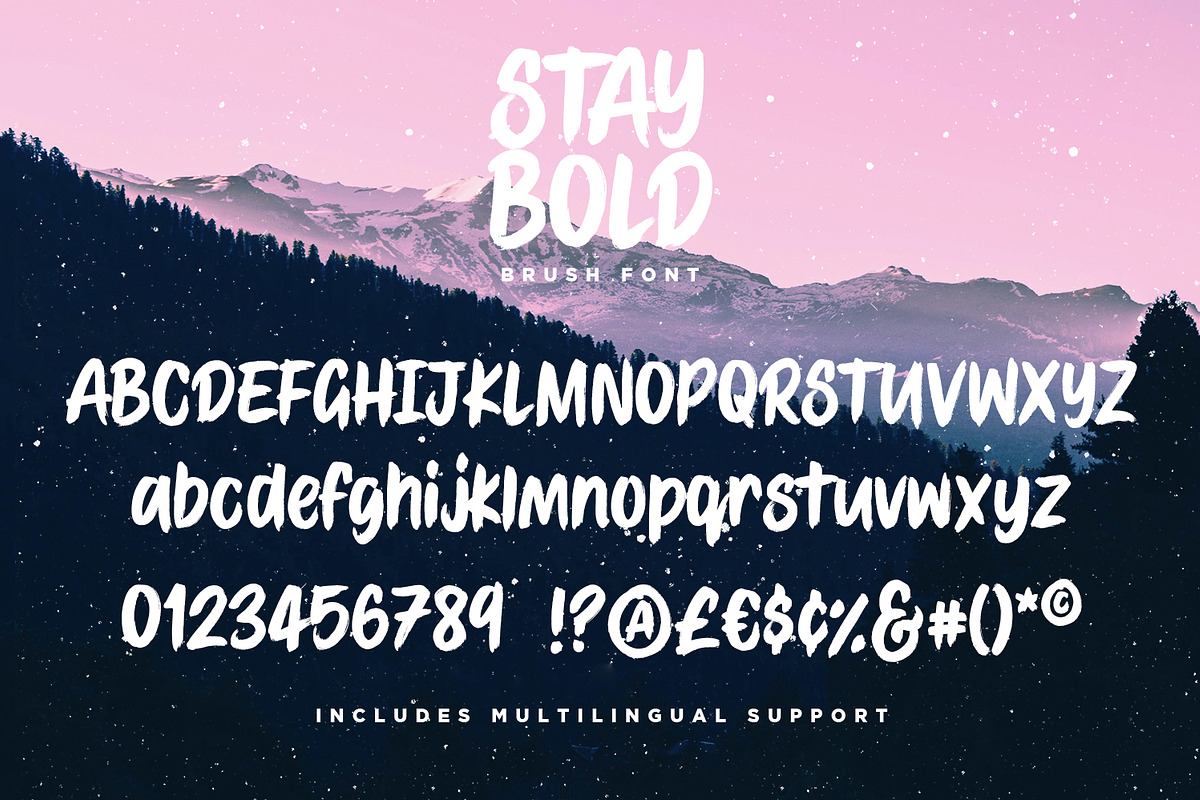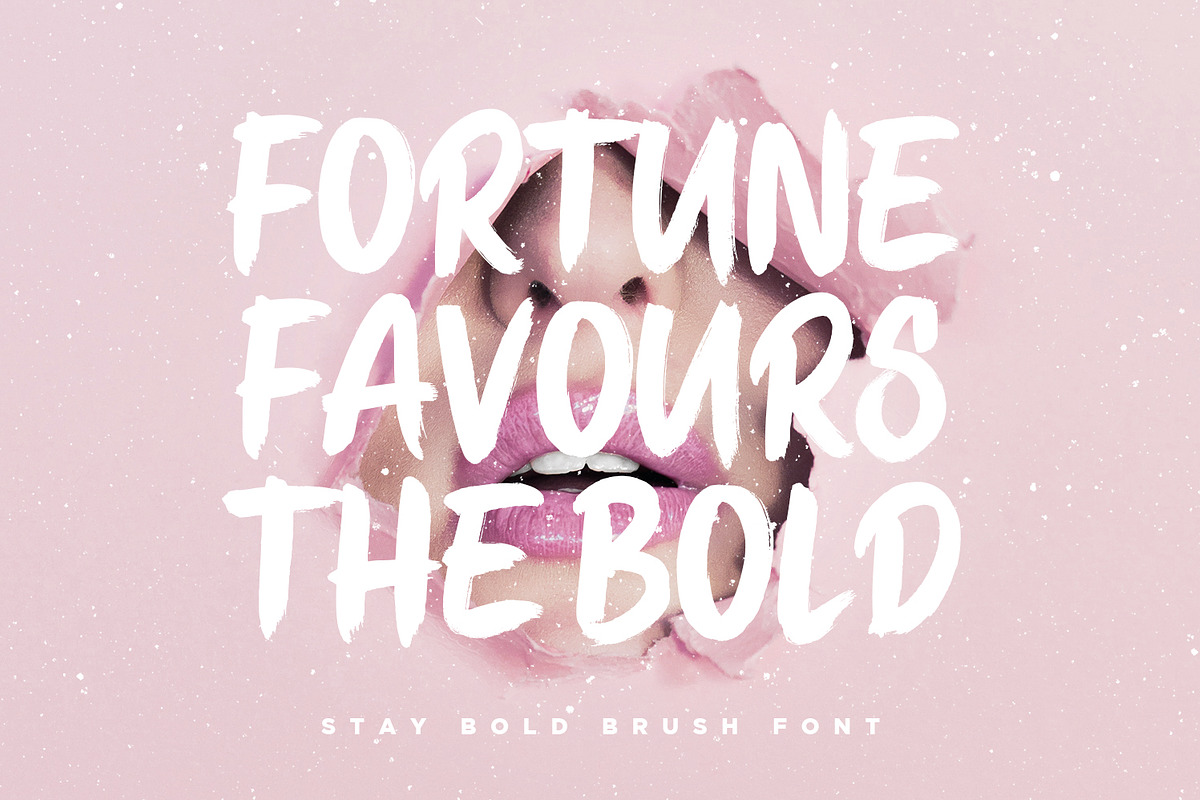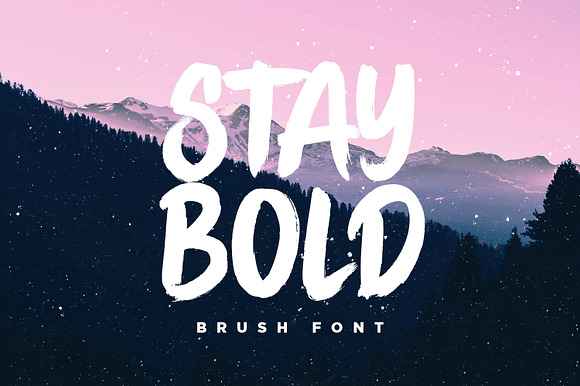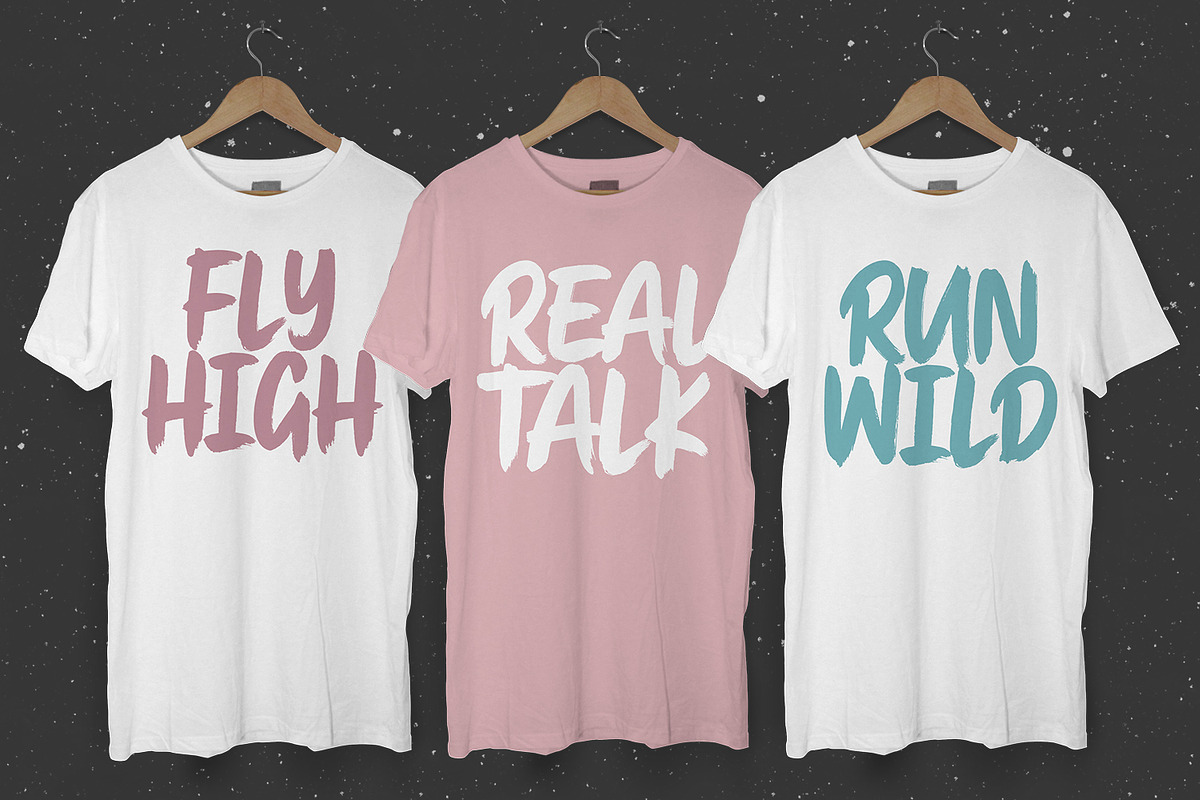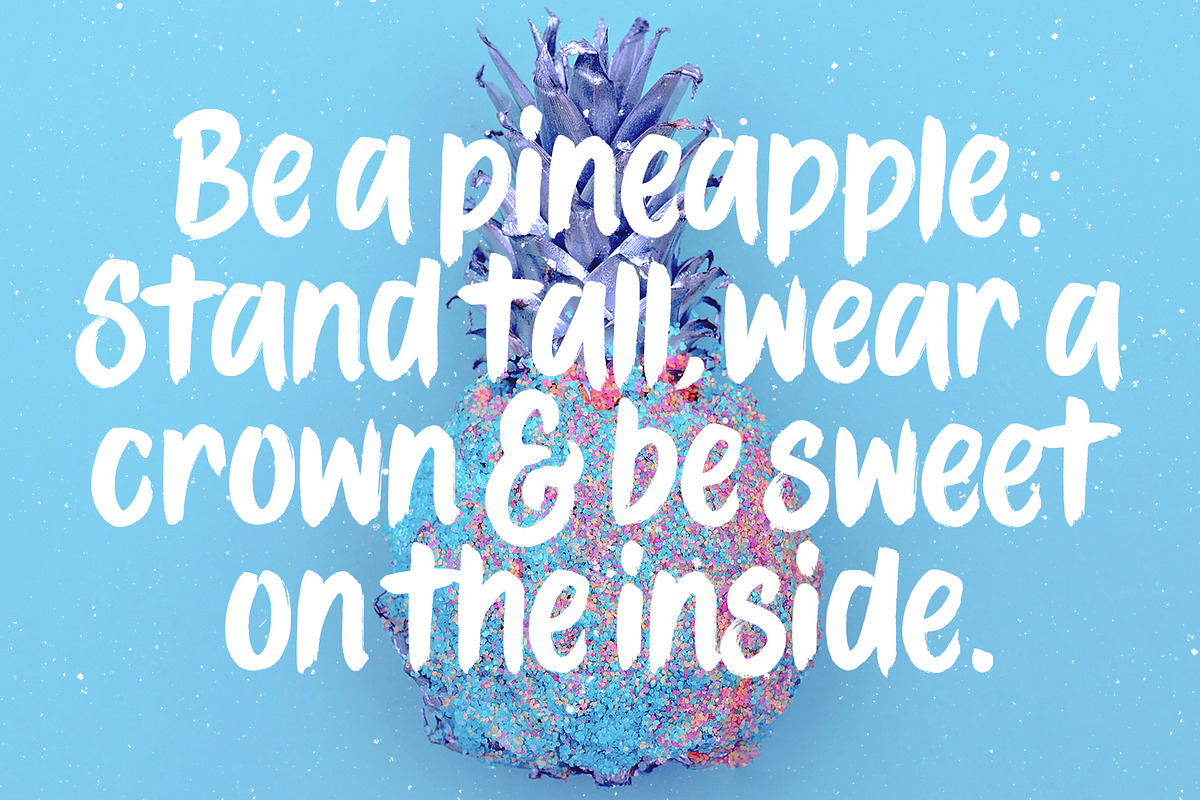
STAY BOLD Brush Font
#boldisbeautiful, and there's a whole lotta bold in this hand painted brush font, Stay Bold!
With extra chunk in the trunk and a rough paintbrushed edge, Stay Bold cuts straight to the point; ideal for designing big impact merchandise, eye catching social media & marketing posts, and attention-grabbing product packaging & branding projects.
Fortune favours the bold.